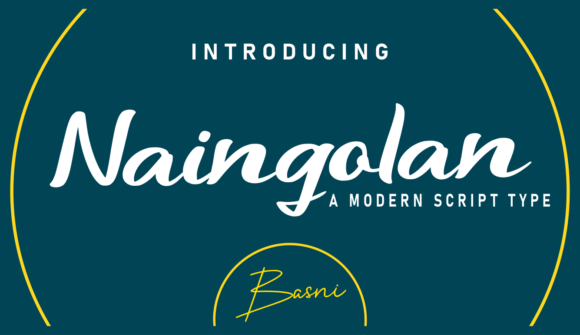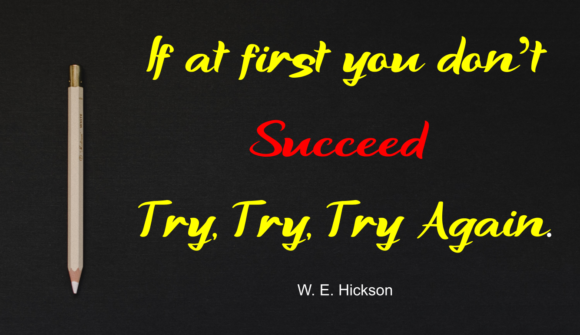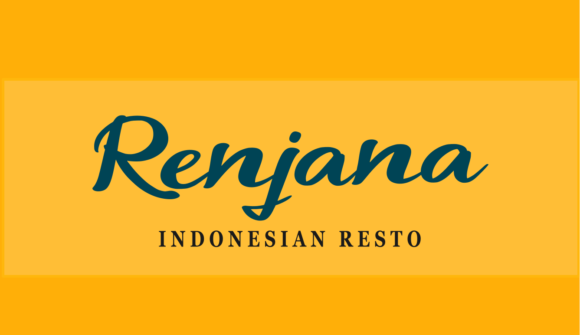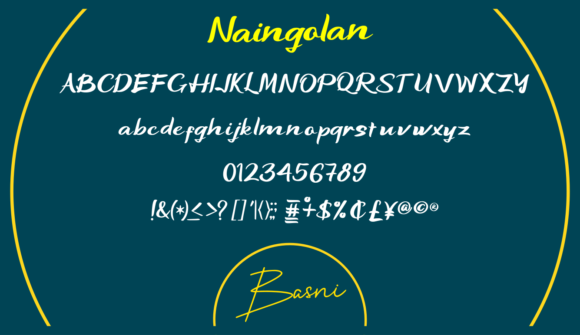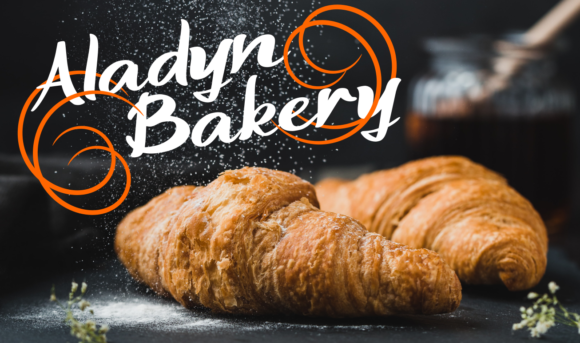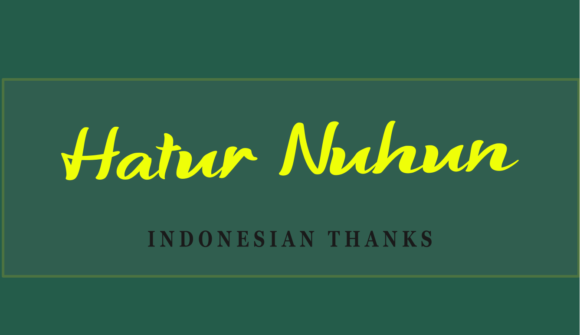
Naingolan Font
About Naingolan Font
Naingolan is a beautiful and flowing brushed script font. It is defined by smooth curves and is perfect for fashion branding or editorial designs. Add it confidently to your projects, and you will love the results.